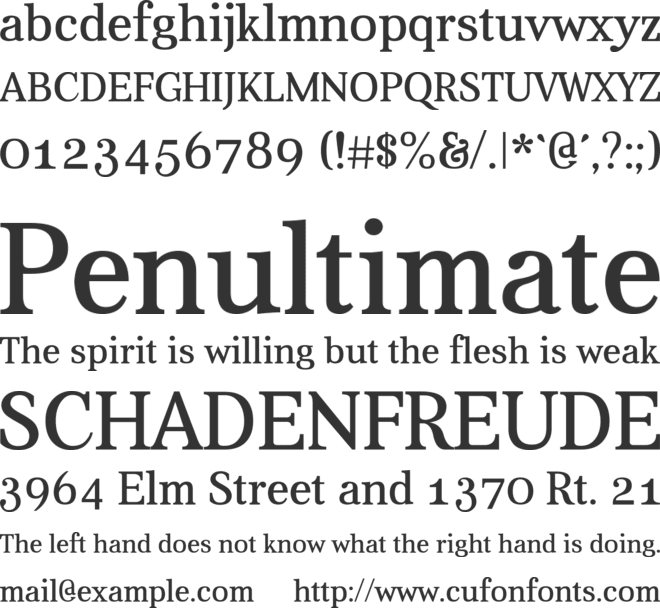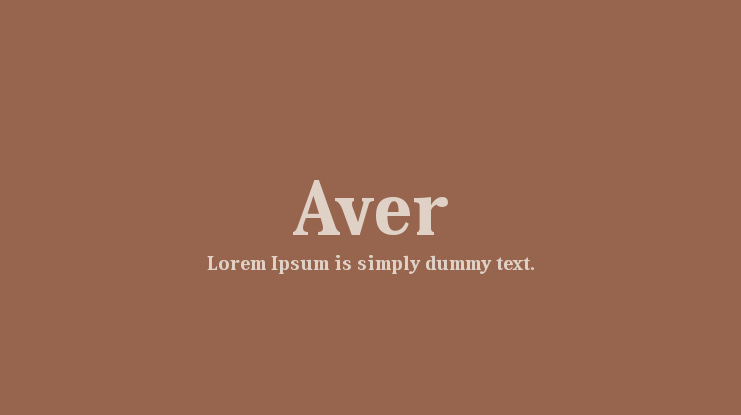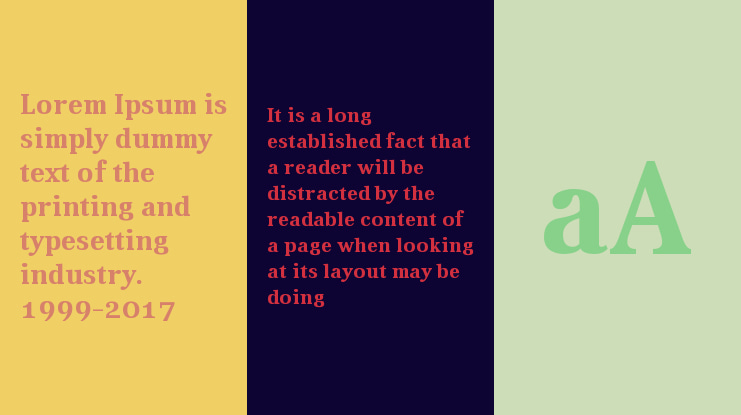
Aver Font Family
Completed and released in May of 2012, Aver began very humbly as the first traditional or old-style serif typeface design by Lauren Thompson in June of 2009. (The 'as yet un-named serif' shown in this post depicts the earliest Aver concept: http://www.nymfont.com/2009/06/preview-of-upcoming-fonts.html)
Three years brewing and proven to be true, Aver asserts emphatically and solemnly.